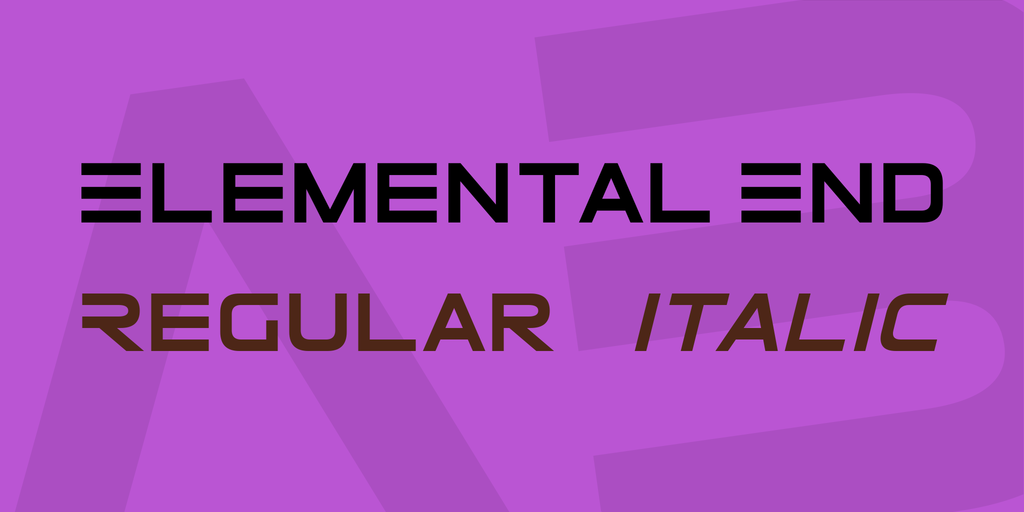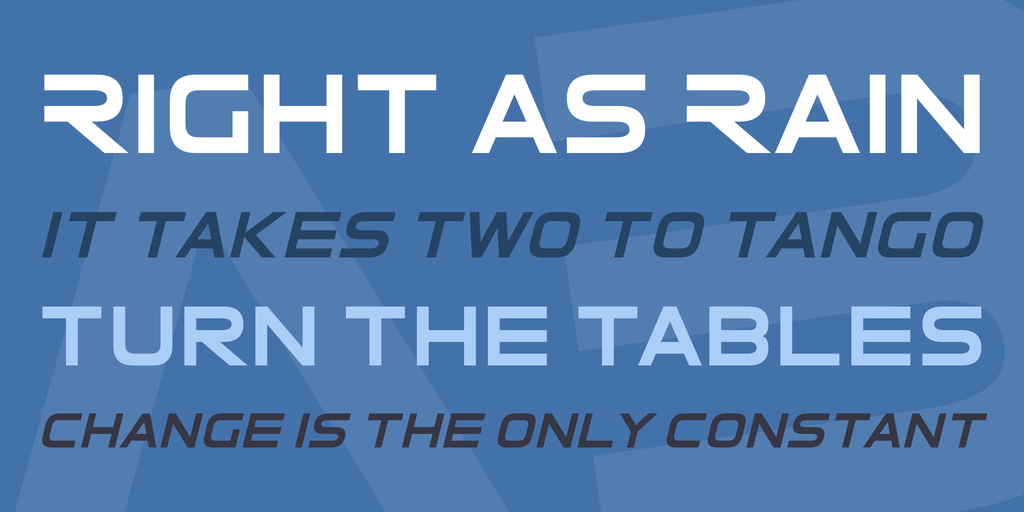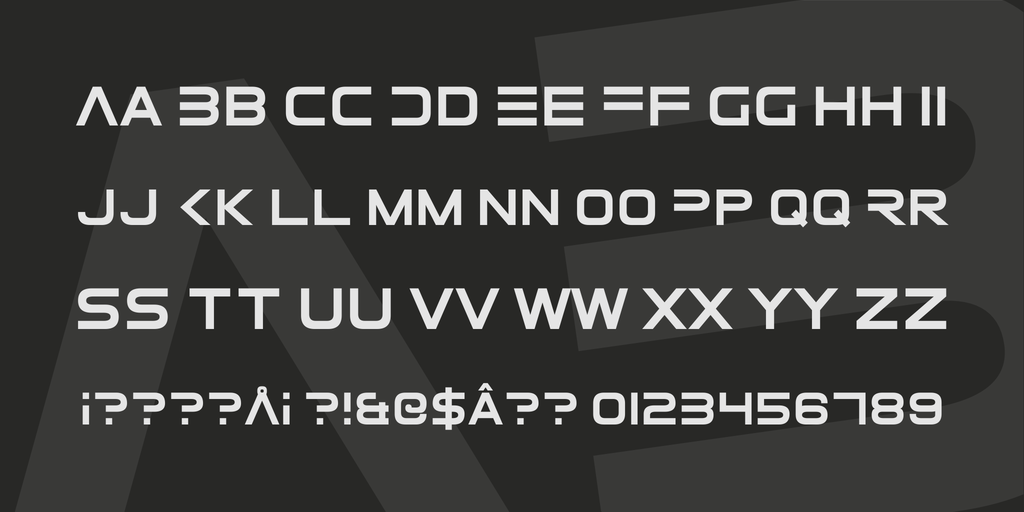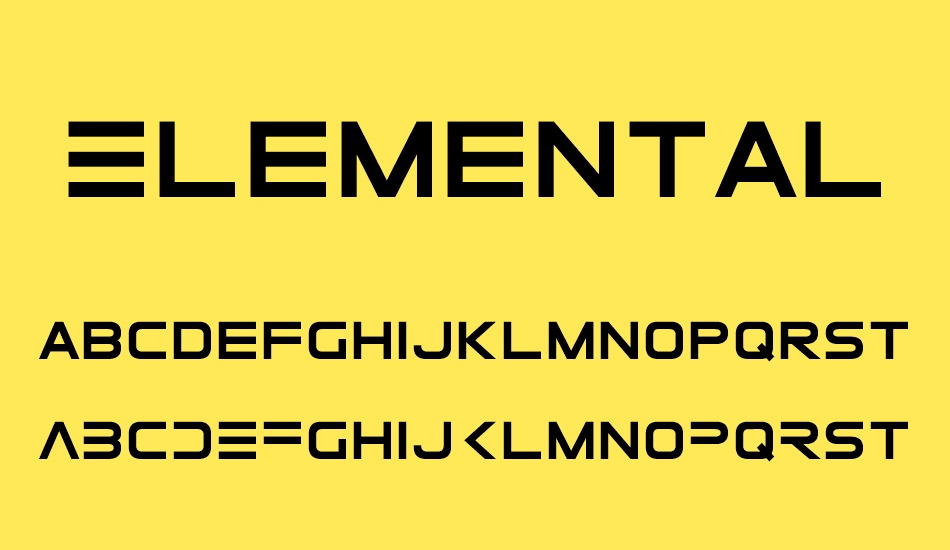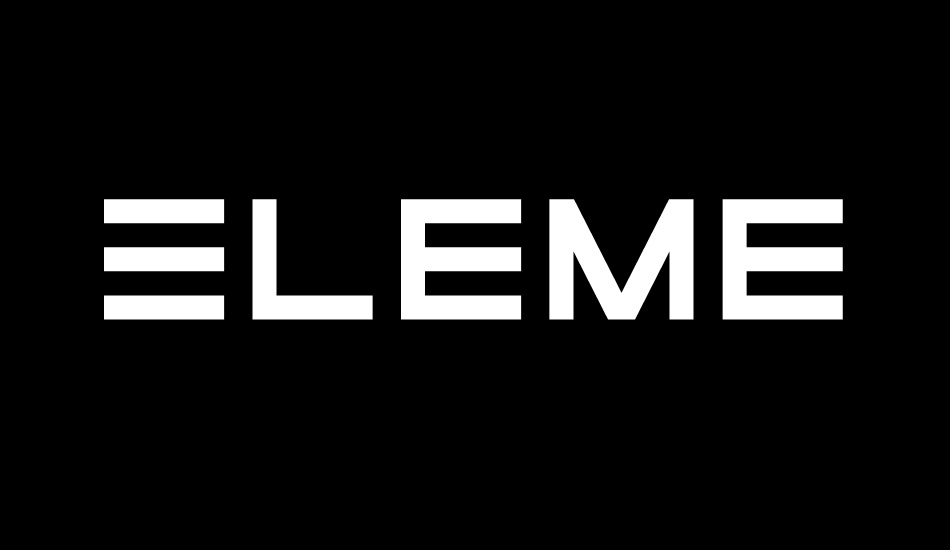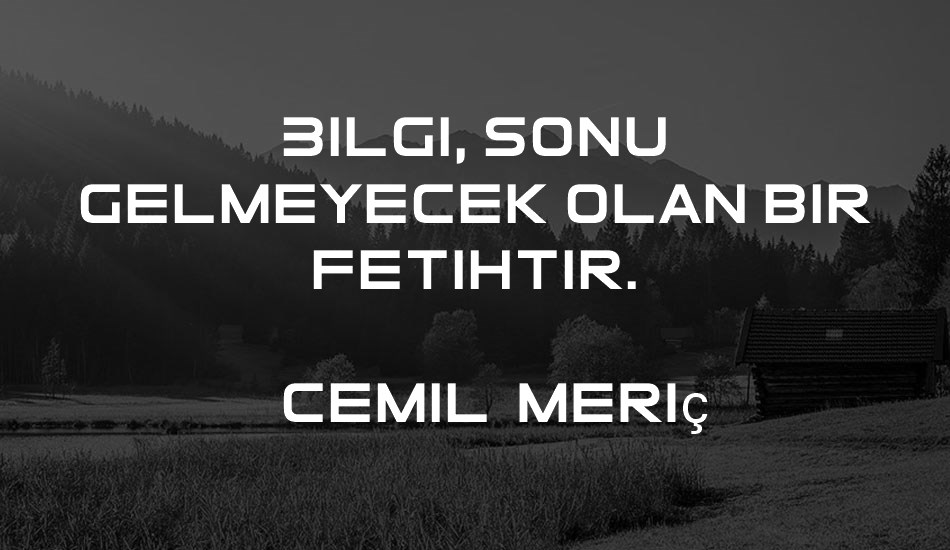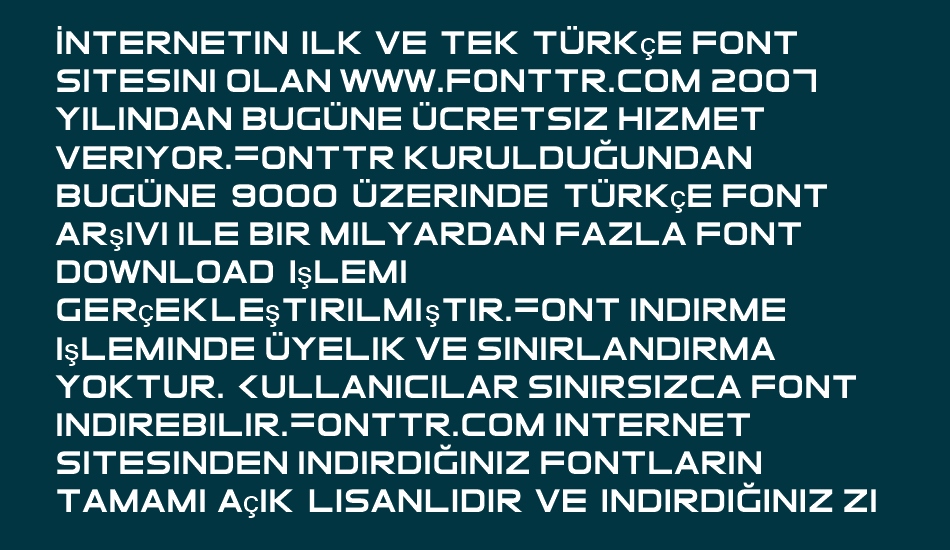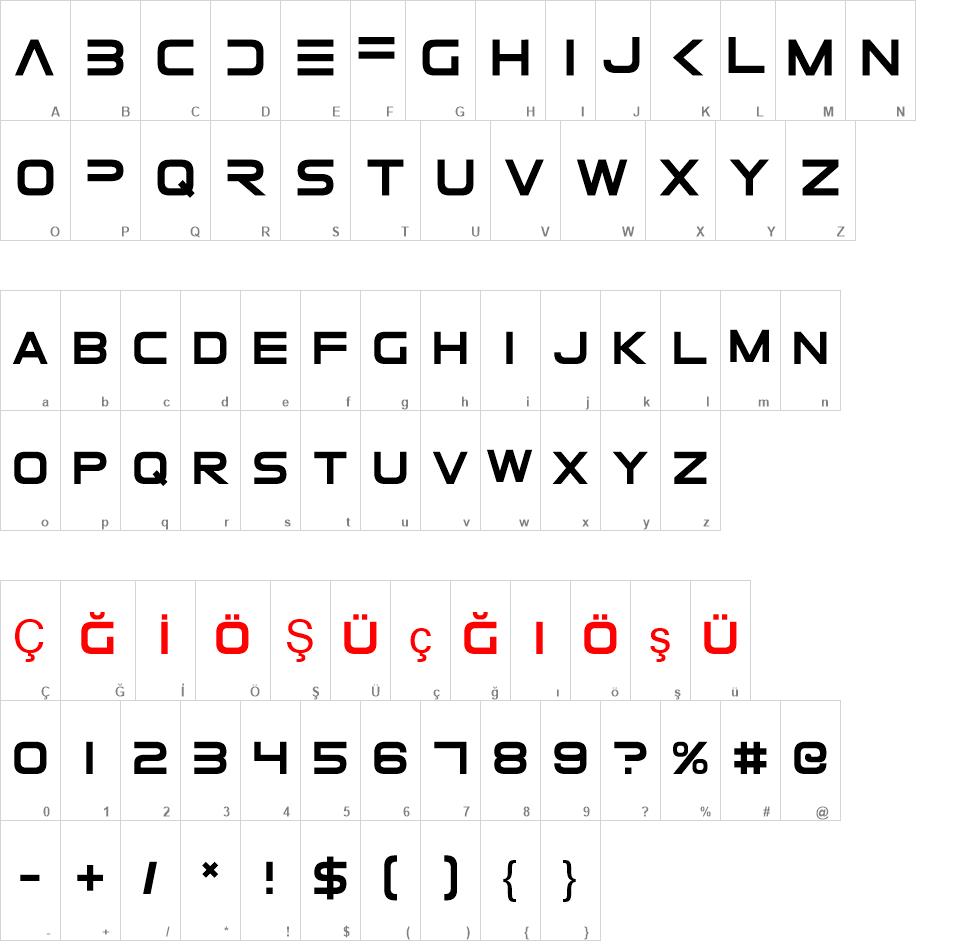
Elemental End font
Elemental End v2.00
by Zdenek Gromnica a.k.a. FutureMillennium
Upper case letters are alternative forms, while lower case are more standard and readable forms. Includes alternative versions of A, B, D, E, F, K, P, R and AE.